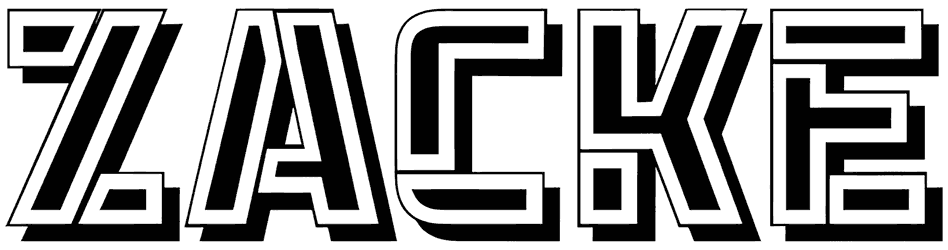
Zacke Font
Zacke may be your helper if you’re in charge of a project set in the future. This sci-fi, shadow font is great for a variety of print and digital projects, despite its lack of lowercase letters.